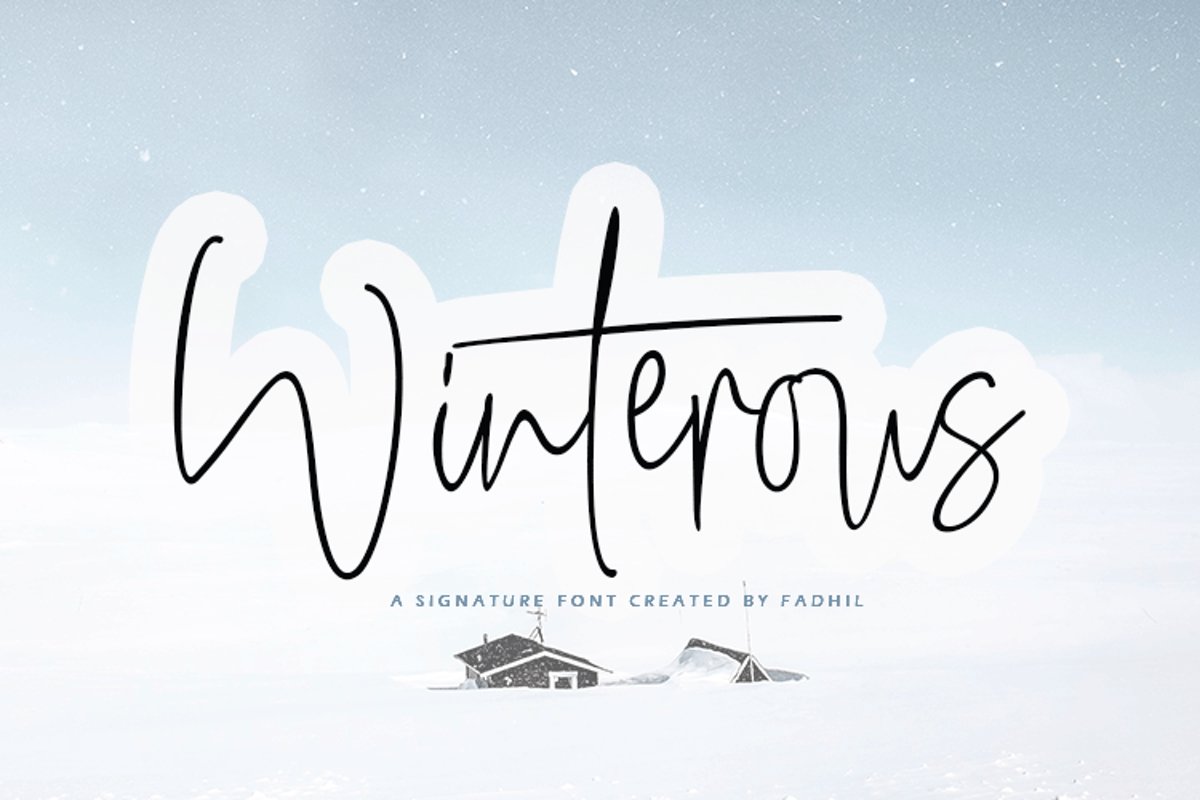
Winterous Duo
Winterous Slant
Winterous
INTRO
Winterous, is another elegant modern handwritten and signature which is combining the style of classic font with an modern style. combines from copperplate to contemporary typeface with a dancing baseline, modern and elegant touch. including alternates, and ligatures.